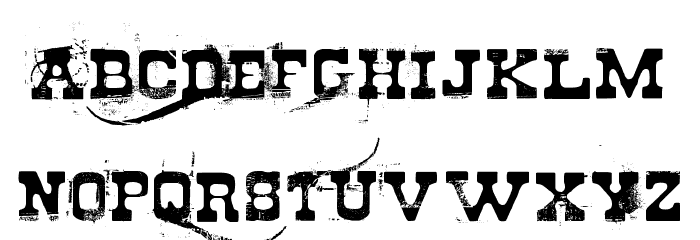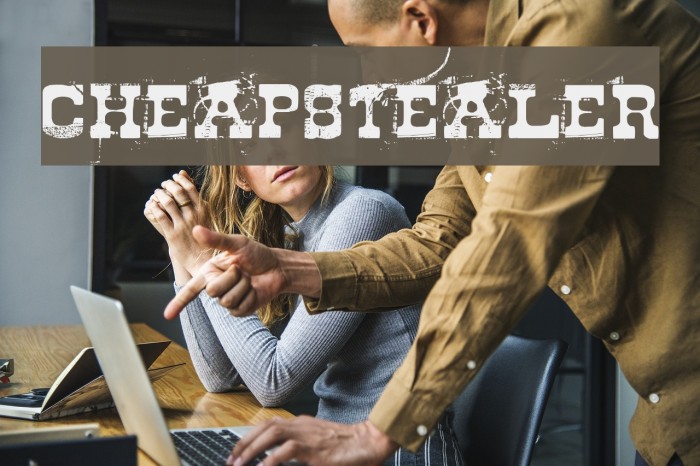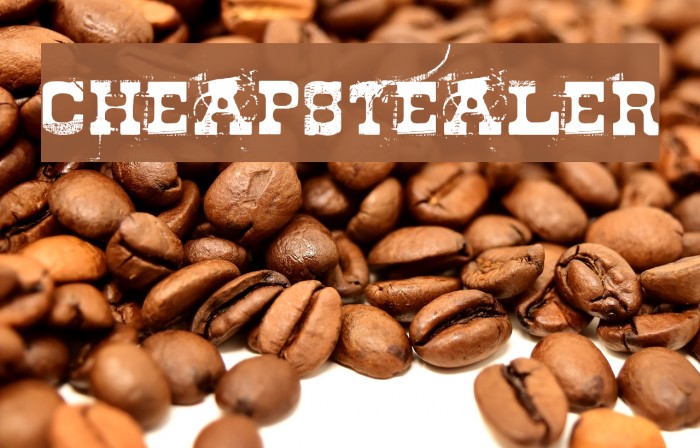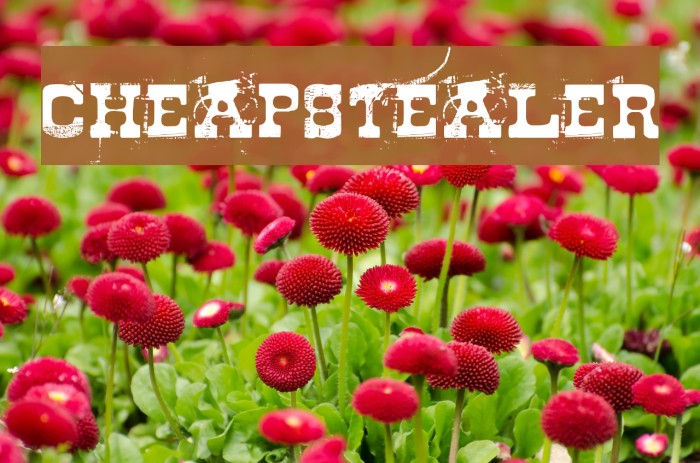
Cheapstealer Font
This font features a bold and distressed style, with a rugged, weathered appearance that gives it a vintage, grunge aesthetic. The uppercase letters are prominently displayed with rough edges and a textured look, suggesting a sense of age and wear. The font's design is reminiscent of old western or industrial themes, making it ideal for projects that require a strong, impactful visual presence. The characters are evenly spaced, maintaining readability despite their distressed nature. This font is well-suited for creating eye-catching headlines, posters, and branding materials that aim to convey a sense of toughness and authenticity.
A bold, distressed font with a vintage, grunge aesthetic.
- Proposed Projects: Ideal for posters, branding, and headlines that require a rugged, vintage look.
- Overall Style: Vintage
- Use Case: Headlines, Posters, Branding